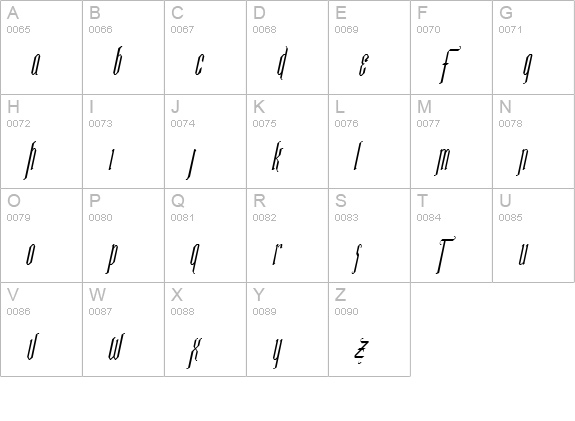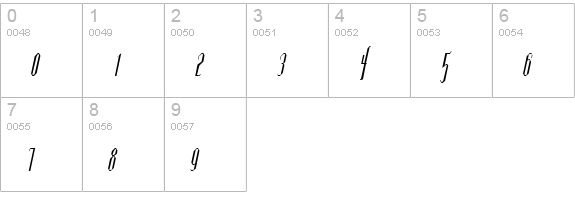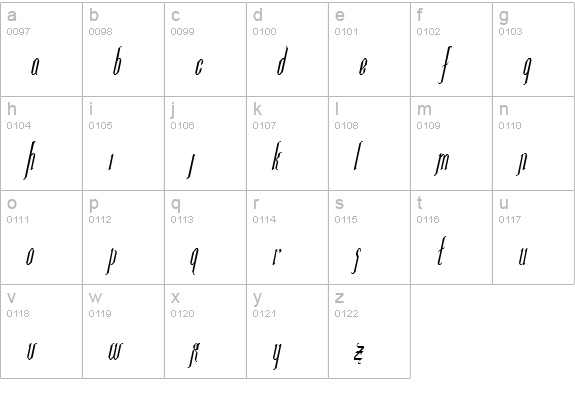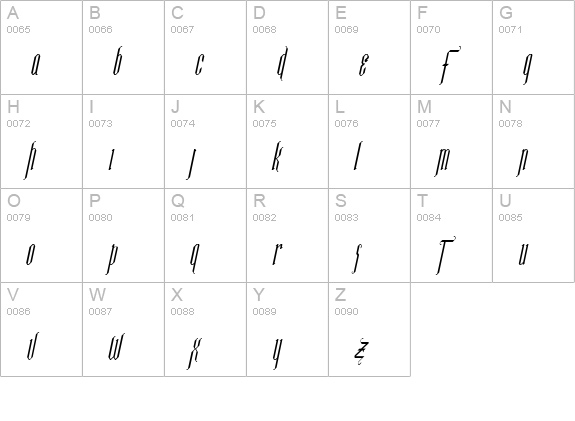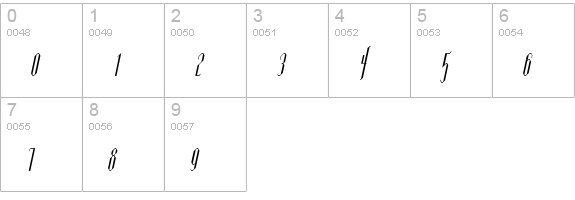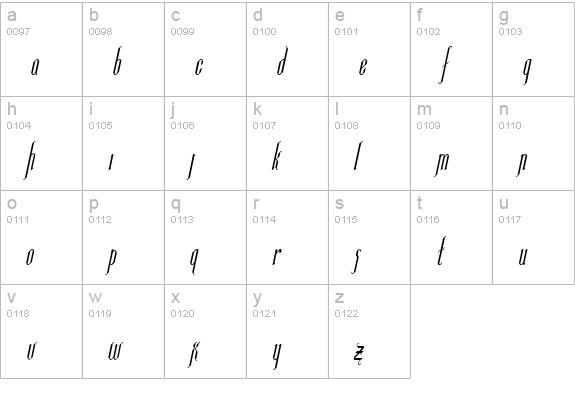
IpswichCondensed Italic Font Details
IpswichCondensed Italic is a distinctive, italic variant in the IpswichCondensed typeface family \xE2\x80\x94 well suited to design and typography projects.
IpswichCondensed Italic is a striking and elegant font that exudes sophistication and style. Its condensed form gives it a sleek and sleek appearance, making it the perfect choice for modern and minimalist designs. The italicized letterforms of IpswichCondensed Italic add a touch of elegance and flair, adding a unique and distinctive look to any project. Its slanted and cursive-like design creates a sense of movement and dynamism, making it ideal for conveying a sense of energy and excitement. With its wide range of weights and styles, IpswichCondensed Italic offers versatility and flexibility for all your design needs. Whether you're creating a logo, designing a website, or crafting a poster, this font will effortlessly elevate your project and make it stand out from the crowd. And here's the best part – IpswichCondensed Italic is free! That's right, you can freely download this amazing font at FontsMarket.com. Now you can enjoy the beauty and functionality of IpswichCondensed Italic without having to break the bank. So why wait? Enhance your designs today with this stunning font and experience the difference it can make.